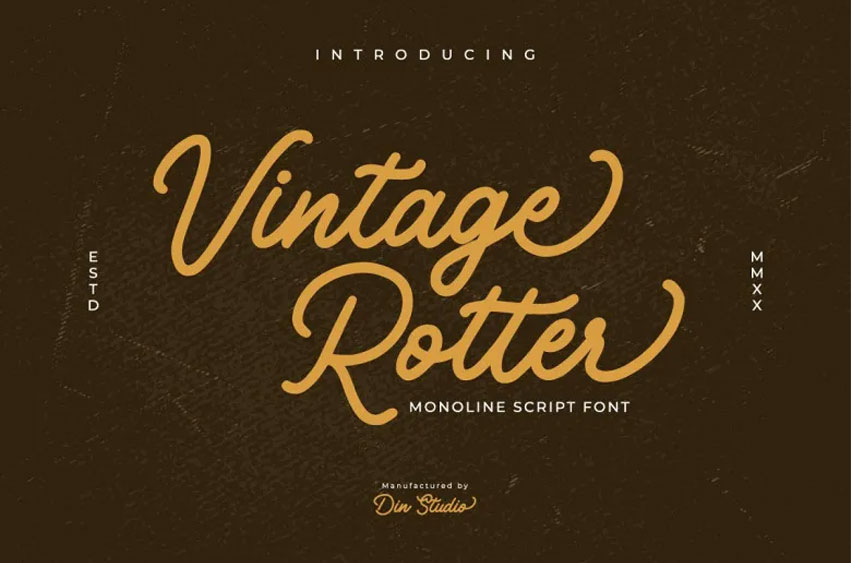
Vintage Rotter Font is a monoline script typeface that helps in conveying messages through designs effortlessly and in a way that will be difficult to forget with the help of visually appealing designs.
Ideal for printing, business, wedding, and quotes; every letter has its own special and elegant design!